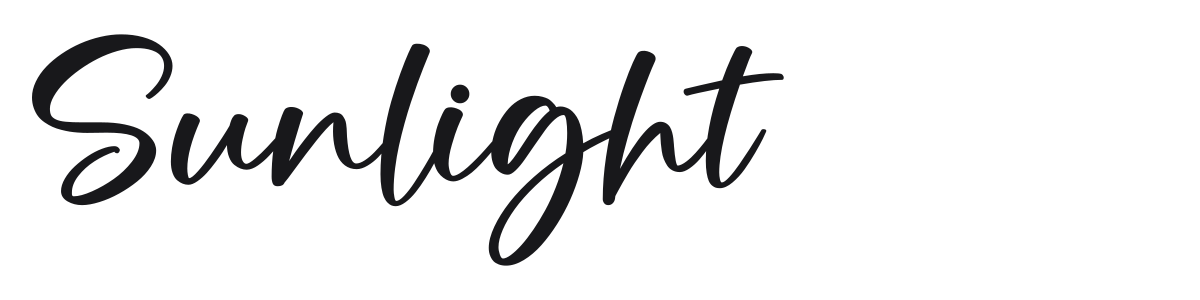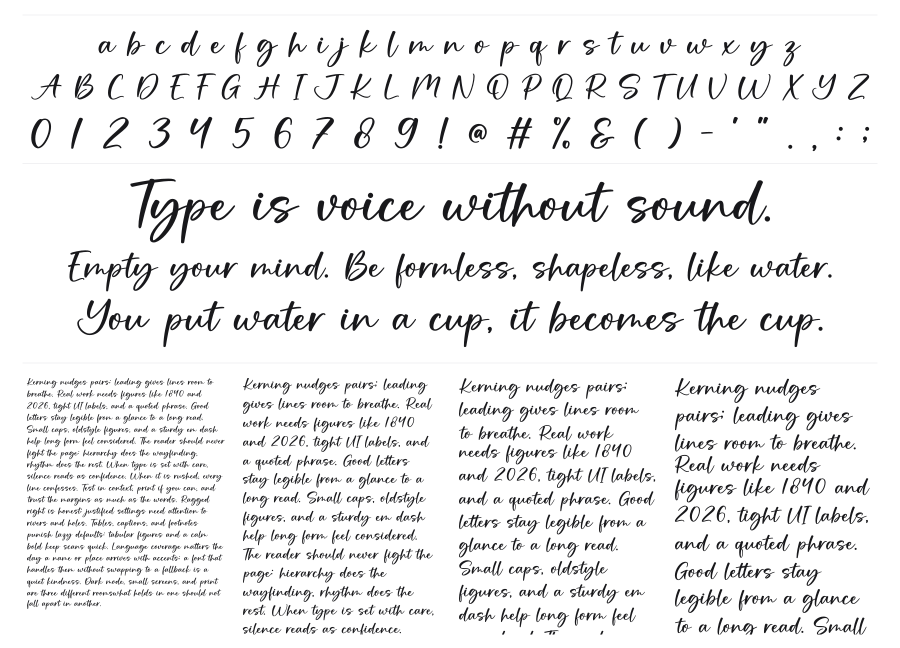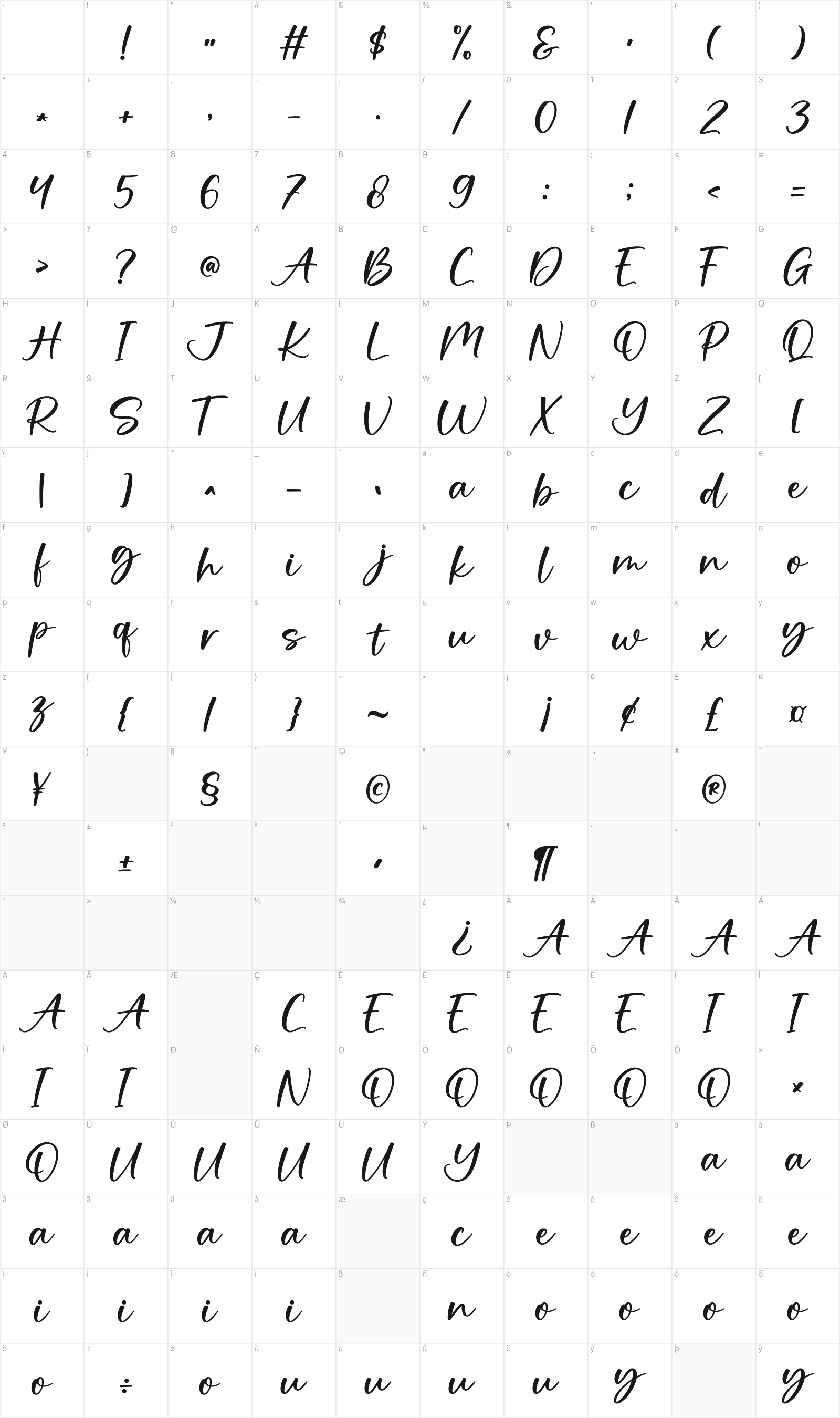
Sunlight
Sunlight is a flowing casual script with generous loops and expressive stroke contrast between thick downstrokes and fine hairlines. The bouncy baseline and long sweeping connectors give it an energetic, handwritten feel that reads as both relaxed and polished. It suits branding, packaging, and any project that needs warmth without formality.